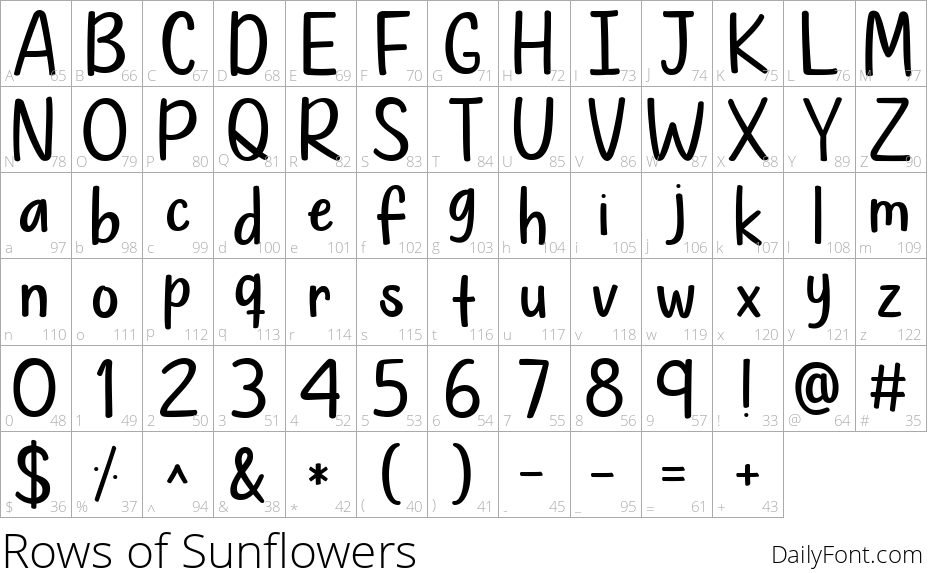
Rows of Sunflowers
Rows of Sunflowers is a delightful handwritten font that exudes warmth and playfulness. Its friendly, sunlit letterforms bring a sunny charm and personality to any design project. Perfect for invitations, greeting cards, logos, and social media graphics, this font helps brands feel approachable and cheerful. Use it for wedding invitations, birthday cards, boutique branding, packaging labels, or quote art—anywhere you want a handwritten touch that's inviting and memorable.
Rows of Sunflowers supports bold headlines and readable body copy, making it a versatile choice for branding, social media templates, event stationery, and packaging. The rounded, friendly strokes pair well with clean sans-serifs, creating inviting contrast in logos and posters. On screen or in print, the character set maintains charm without sacrificing legibility, ensuring your message stays warm, legible, and on-brand across campaigns and platforms.
Pair Rows of Sunflowers with neutral or bold color palettes to enhance mood—from airy pastels to vibrant, high-contrast schemes. It is an ideal choice for designers seeking a distinctive, friendly font that elevates branding, invitations, and social content.